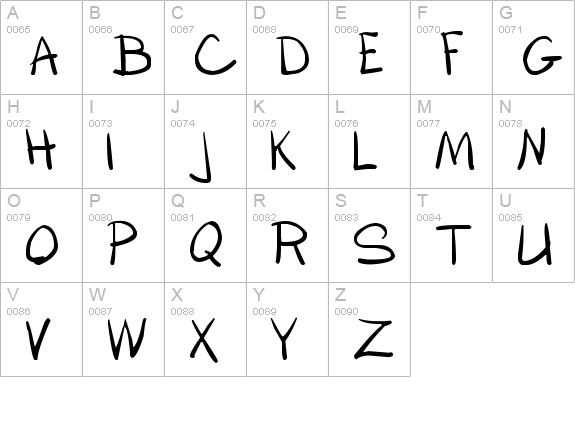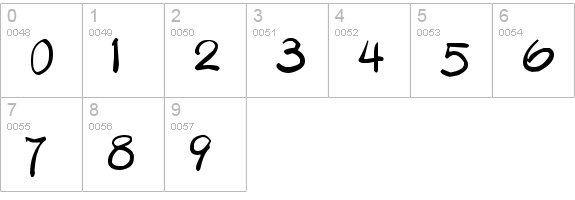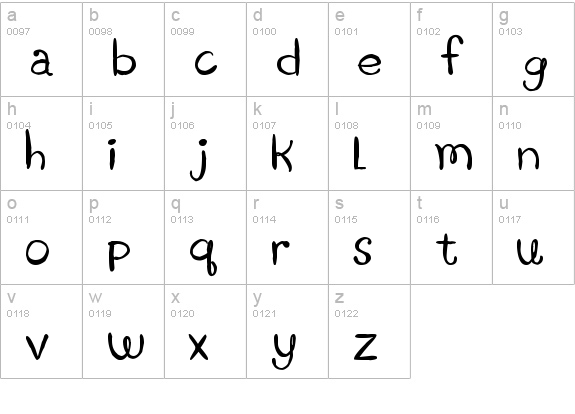
Boring Showers Font Details
Introducing Boring Showers font - a beautifully designed typeface that exudes simplicity and elegance. This font is perfect for various design projects, from posters to branding materials, with its clean lines and modern aesthetic. Boring Showers font strikes the perfect balance between being understated yet impactful, making it a versatile choice for both digital and print designs. And the best part? Boring Showers font is available for free download at FontsMarket.com! Simply head over to the website and grab this stunning font to elevate your creative projects without spending a penny. Don't miss out on this opportunity to add a touch of sophistication to your designs with Boring Showers font - download it today and let your creativity shine!